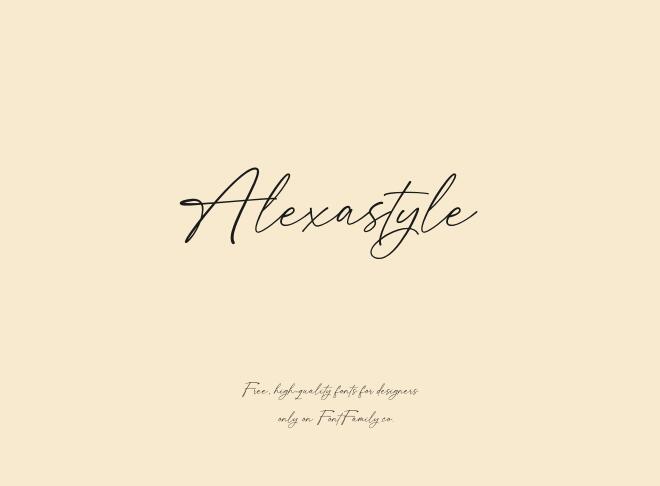
Alexastyle Font
Alexastyle Font is a unique and elegant handwritten typeface designed by Alexa Design Studio. With its modern and sophisticated style, it brings a touch of class to any design. Its clean and easy-to-read characters make it perfect for logos, wedding invitations, headings, branding, quotes, and more. It is particularly well-suited to projects that require a personal and stylish touch. Compared to other fonts, Alexastyle Font stands out due to its versatility and exceptional readability. The font's distinctive curves and strokes give a sense of authenticity and uniqueness, making it a great choice for designers looking for a modern yet classic typeface. Its generous spacing ensures high readability in both digital and print mediums. Alexastyle Font is free for personal use, making it an accessible choice for individual designers and small businesses alike.